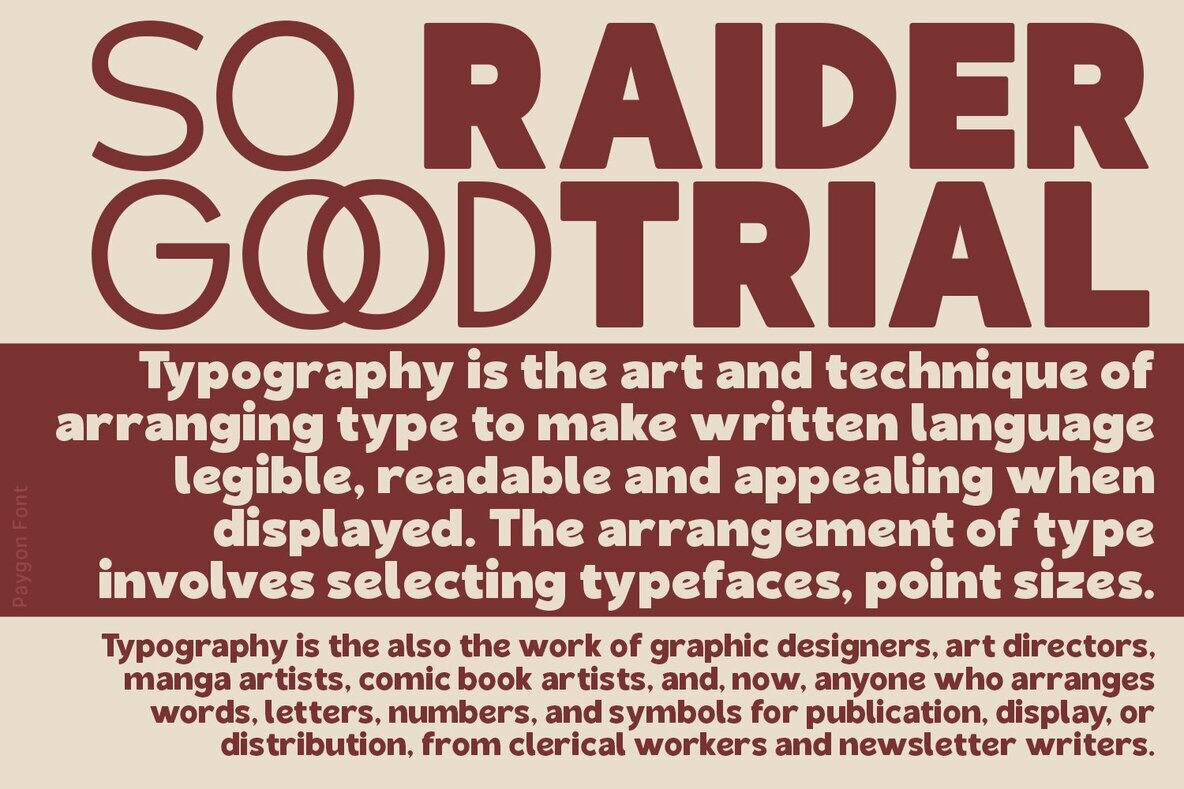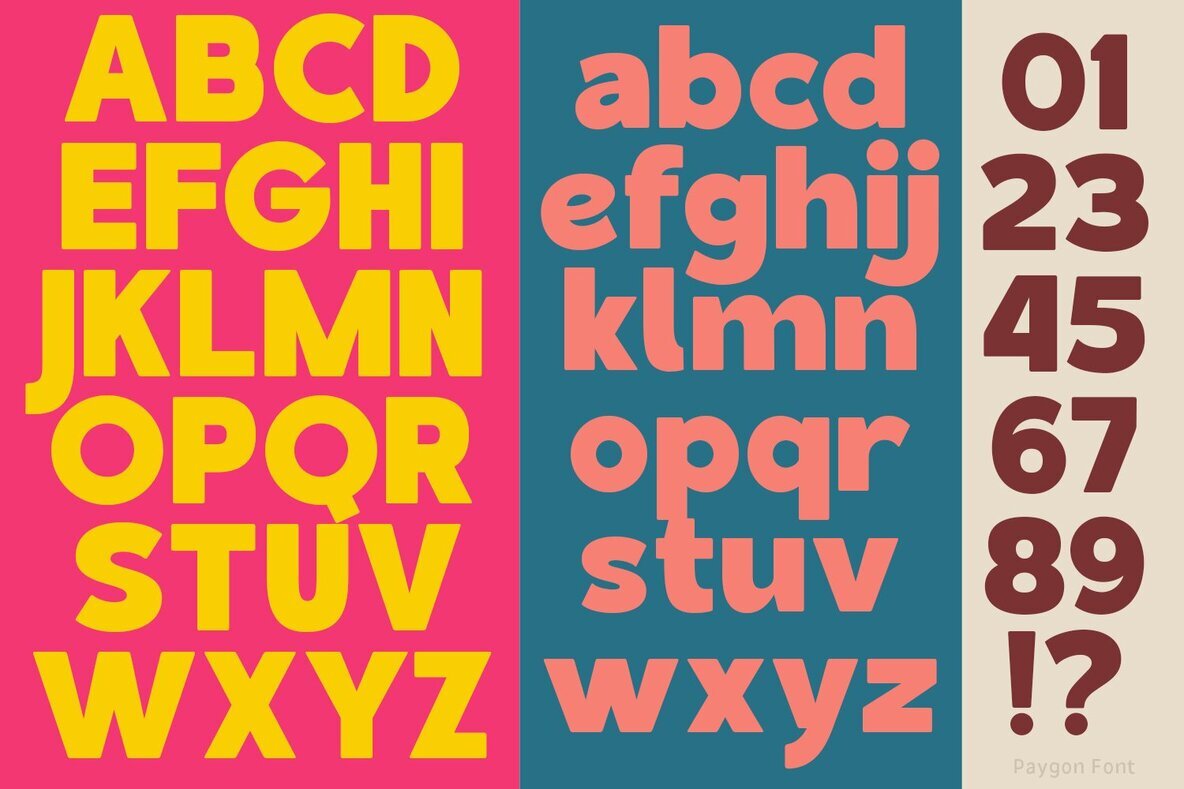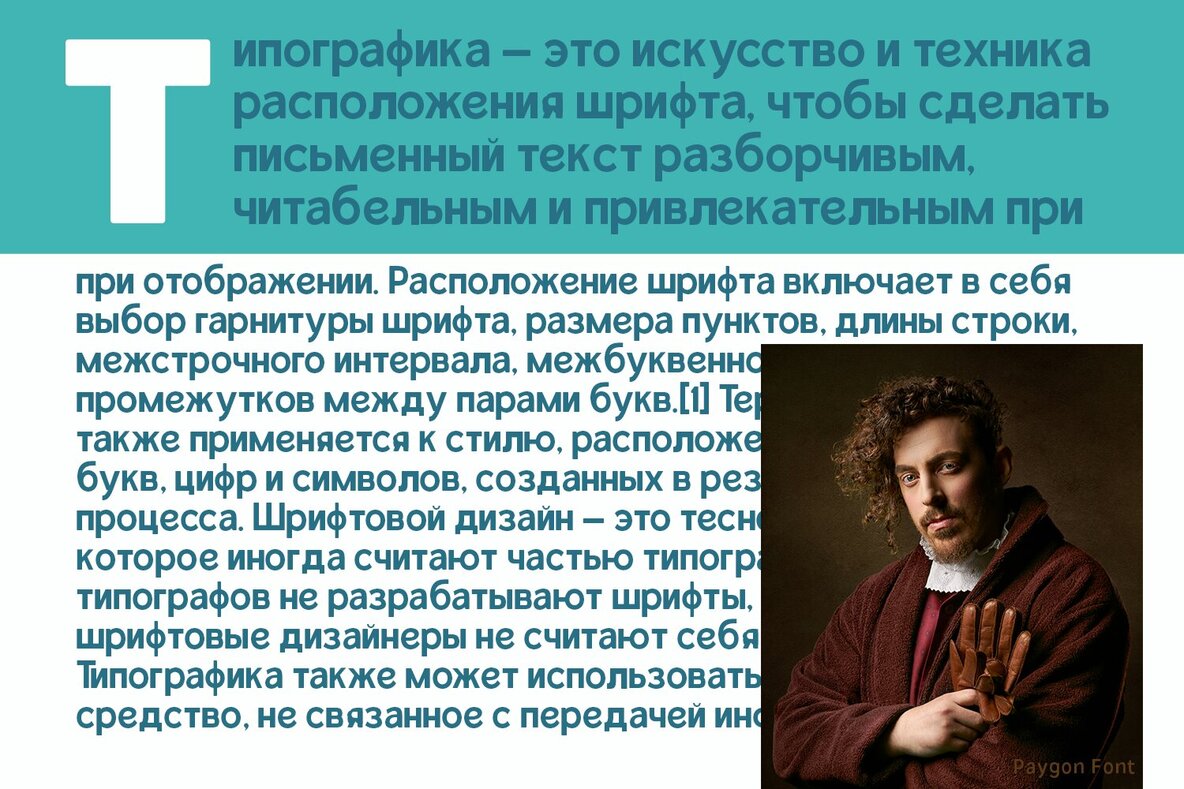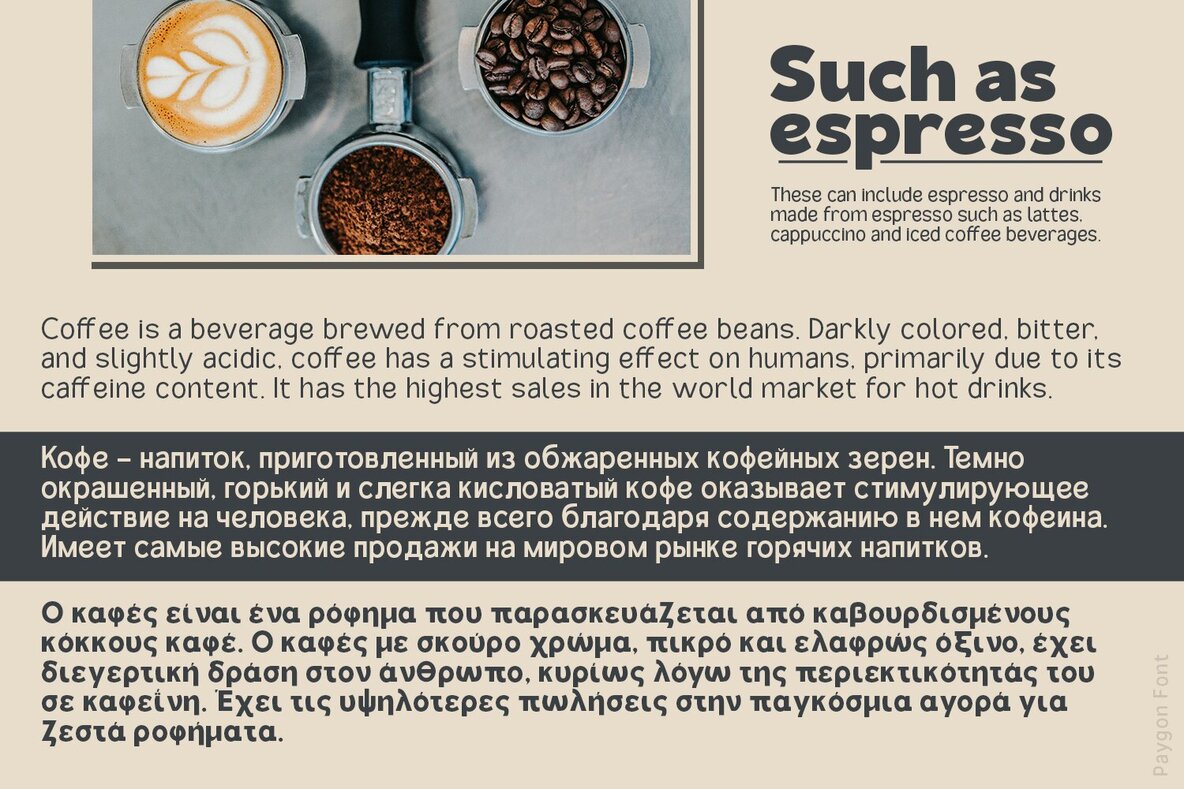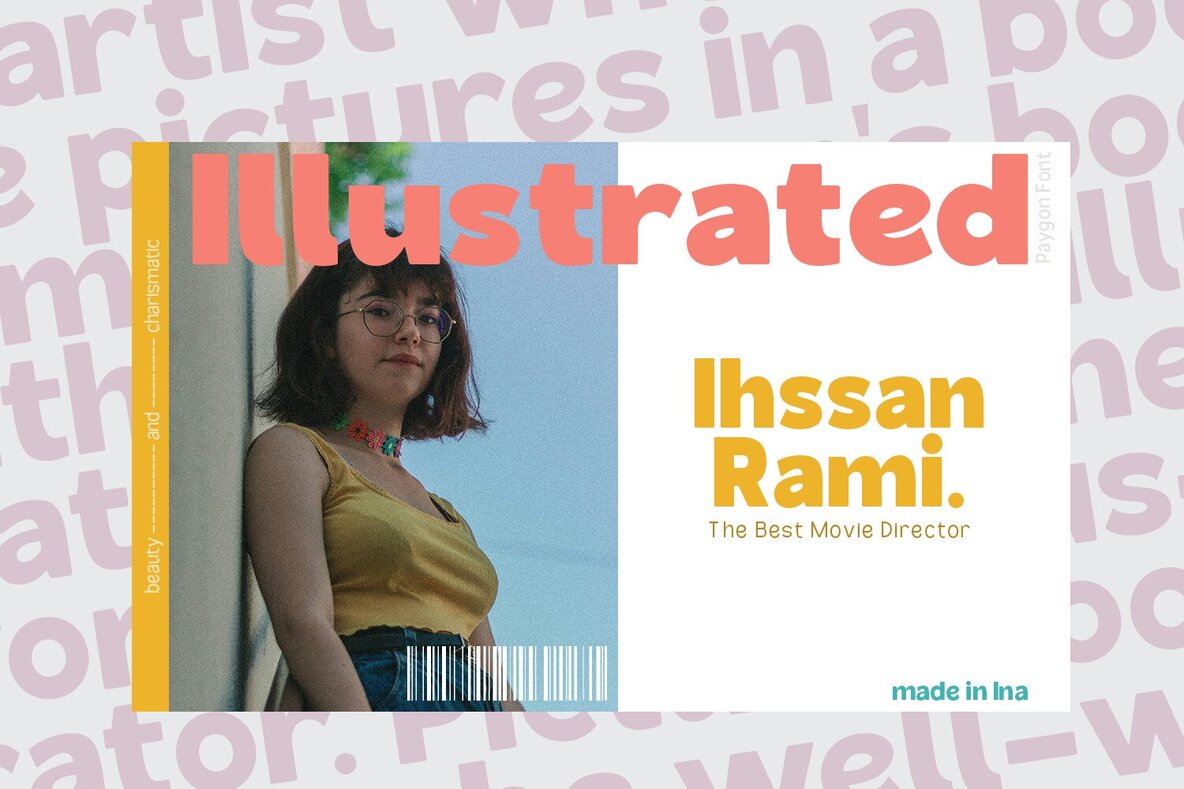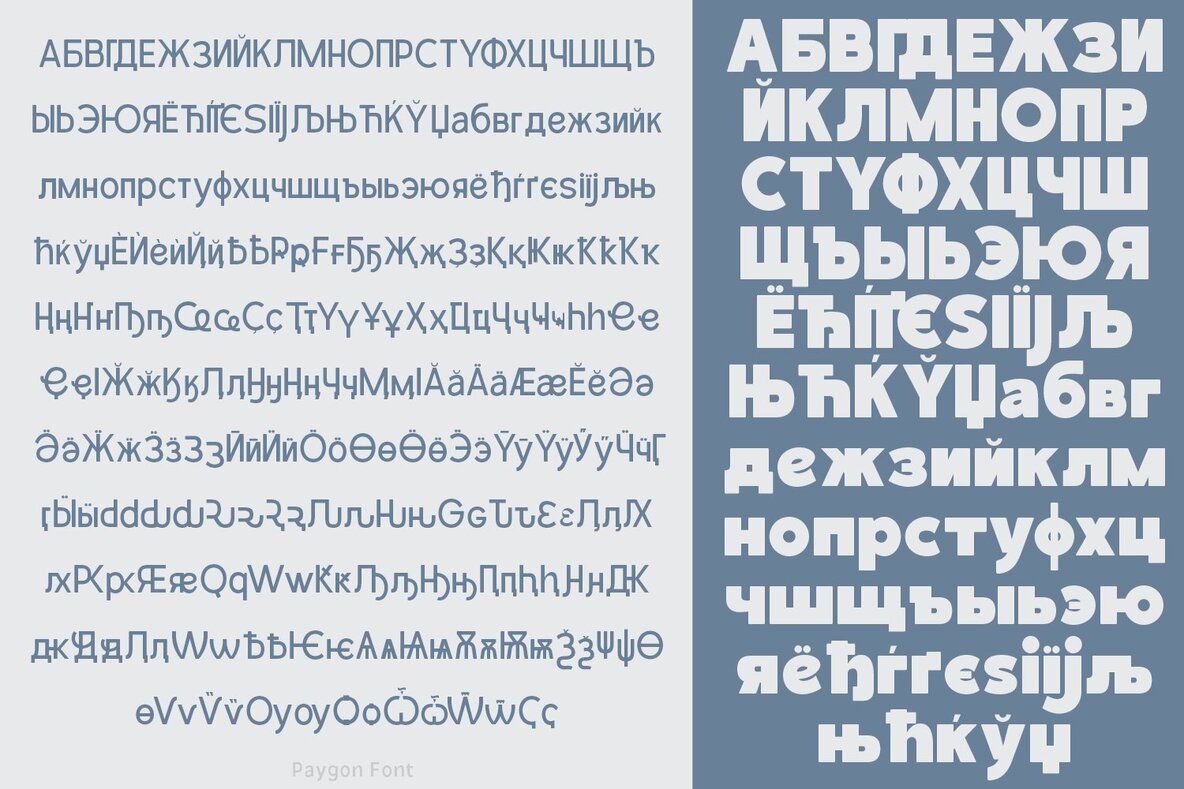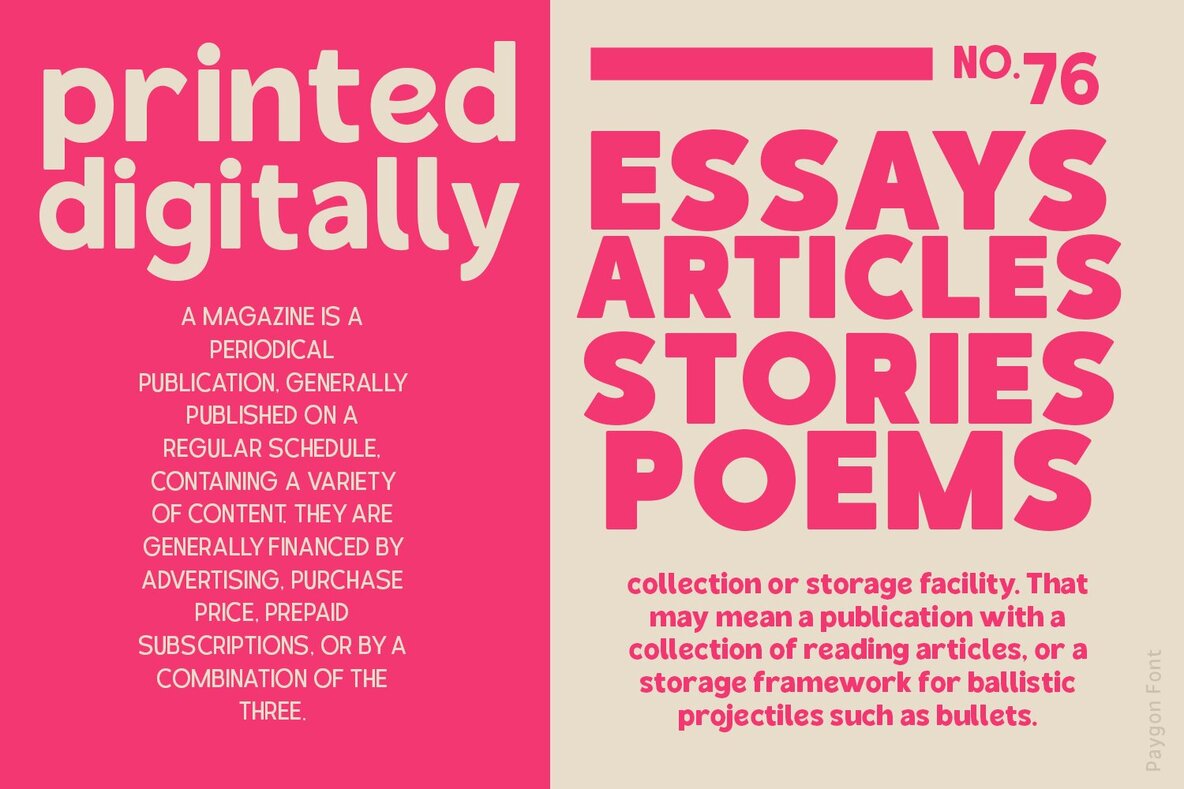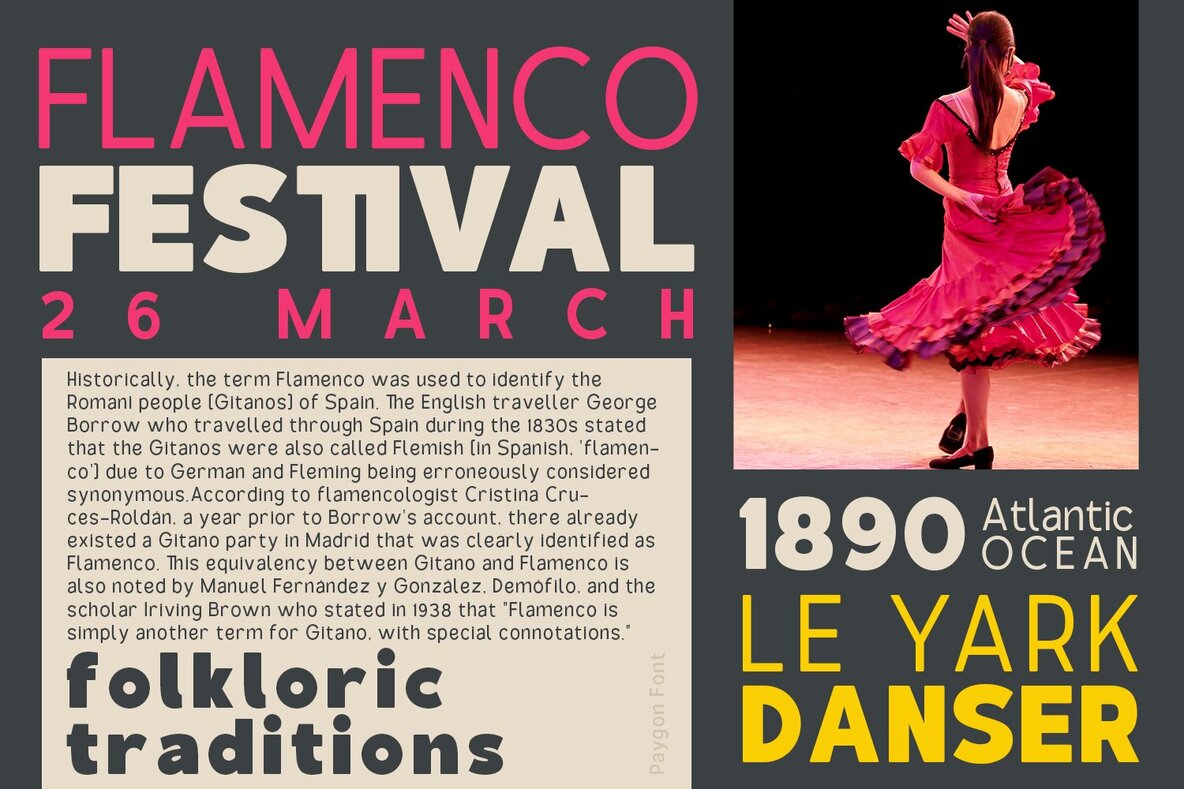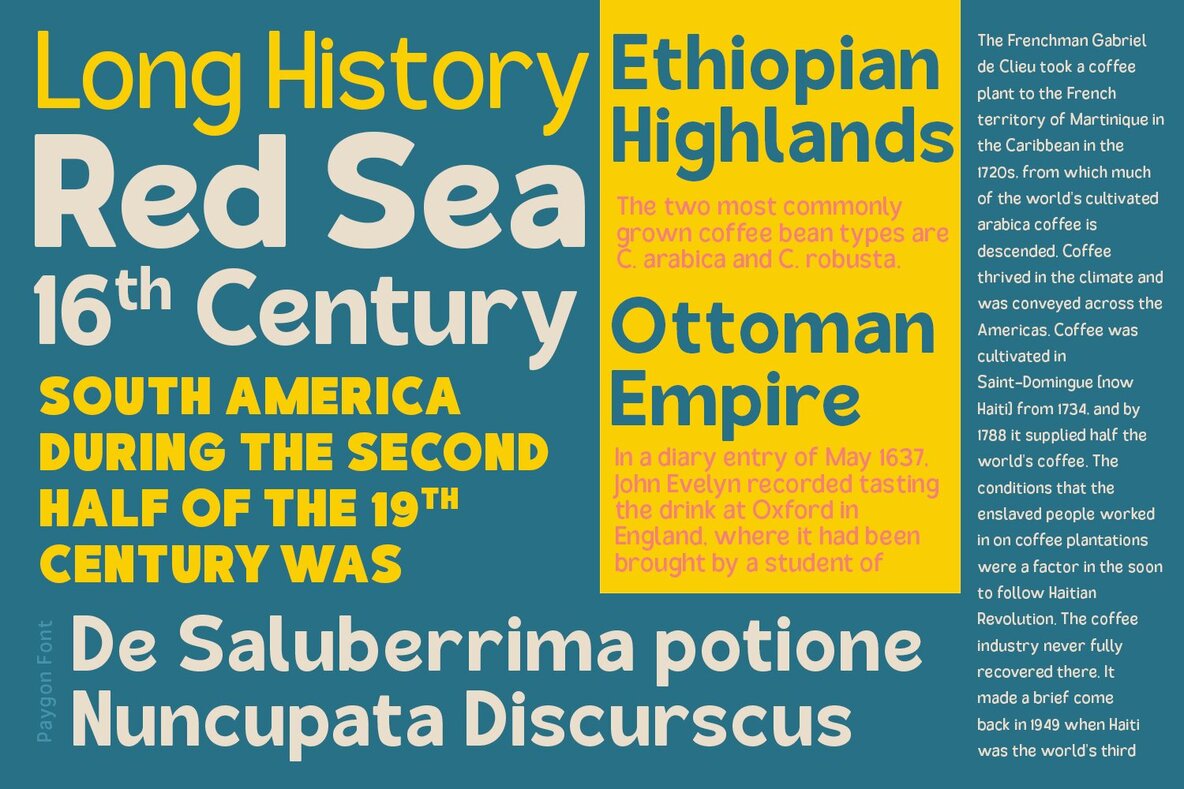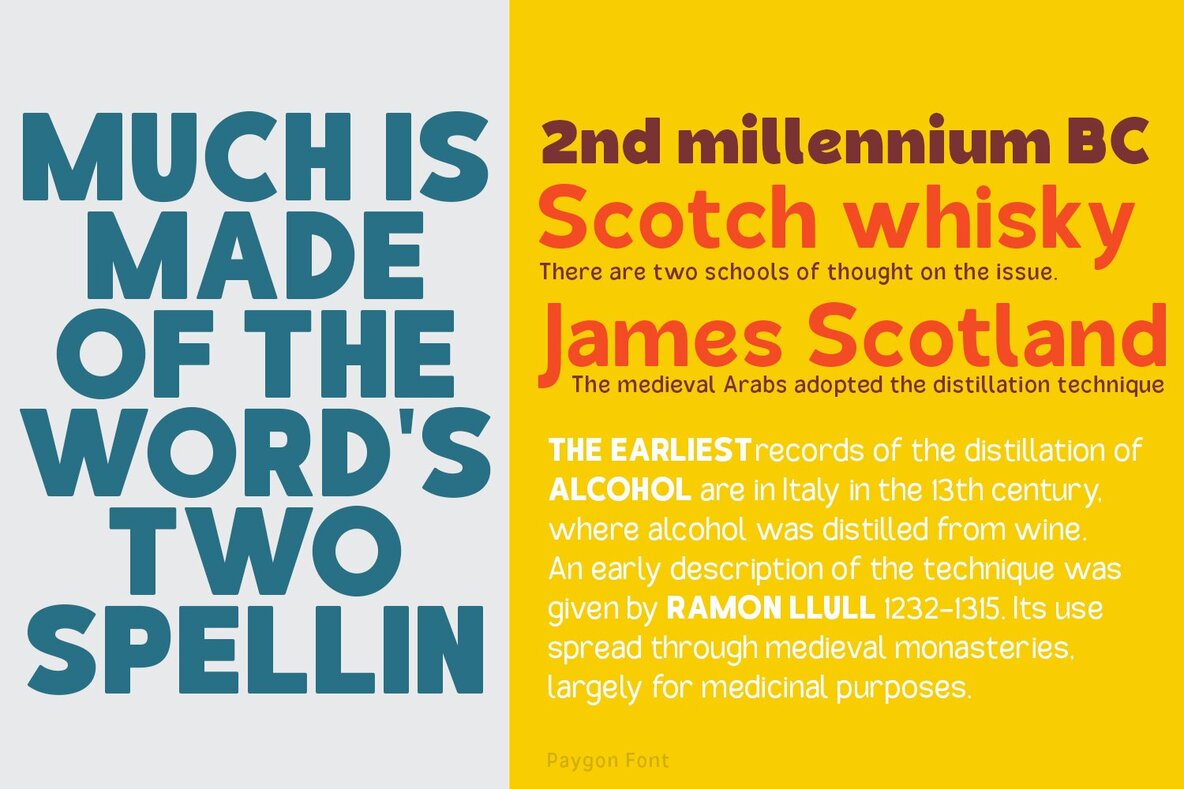
Paygon Font
Discover the remarkable sophistication of Paygon, an avant-garde sans serif family, meticulously crafted by the artistic minds at Type Class Heroes. This all-embracing typeface sets to redefine the thresholds of functionalist aesthetics by offering a vast array of dimensions in width and weight. Designers can explore, play, and synergize different combinations to create an extraordinary rhythm that shapes ambience, texture, and comfortable reading spaces. Eye-catching and robust, Paygon boasts a comprehensive support for over 100 Latin-based languages, while ensuring an extensive range in Cyrillic and Greek. Its impressive versatility and adaptability open endless opportunities for graphic designers, marketing firms, freelancers, and creatives who delight in breaking stereotypes, propelling their designs far beyond the mundane, and into the extraordinary.Delve into the Dimensionality of 'Paygon' - A Masterstroke by Type Class Heroes